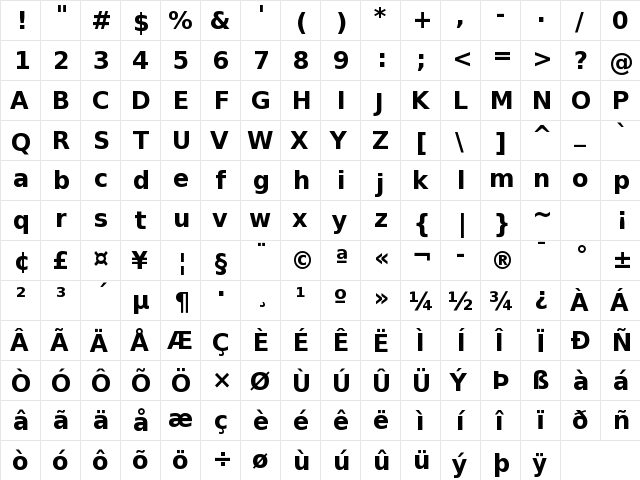
Bepa Bold
| Foundry | Bitstream Inc. |
Design Context for Bepa Typeface
Bepa is a composed and adaptable typeface that performs quietly and consistently across a wide range of design contexts. Its bold stroke weight gives it real presence on the page.